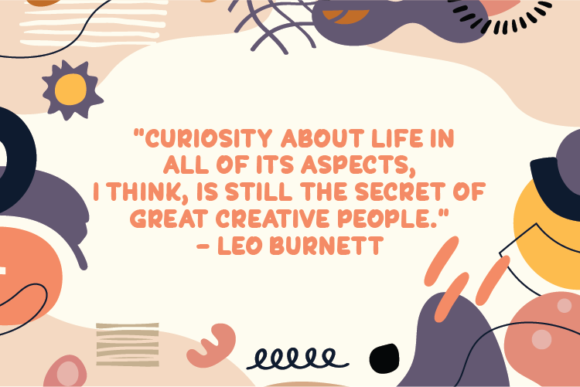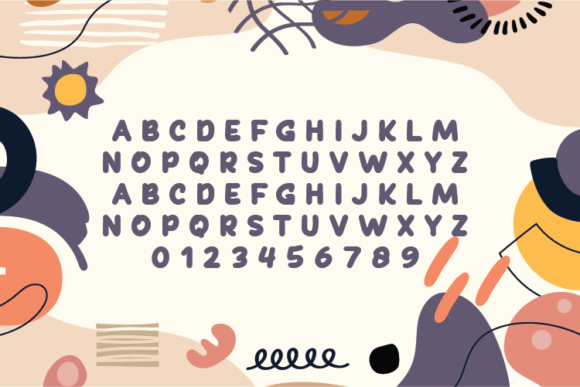
Bubbly Bubble Font
db-ku.com - Script & Handwritten -- Bubbly Bubble is a natural handwritten font without changing a single node in each character’s indentation, this makes this font very interesting and unique. Perfect for quotes, notes, tees, and any product design.